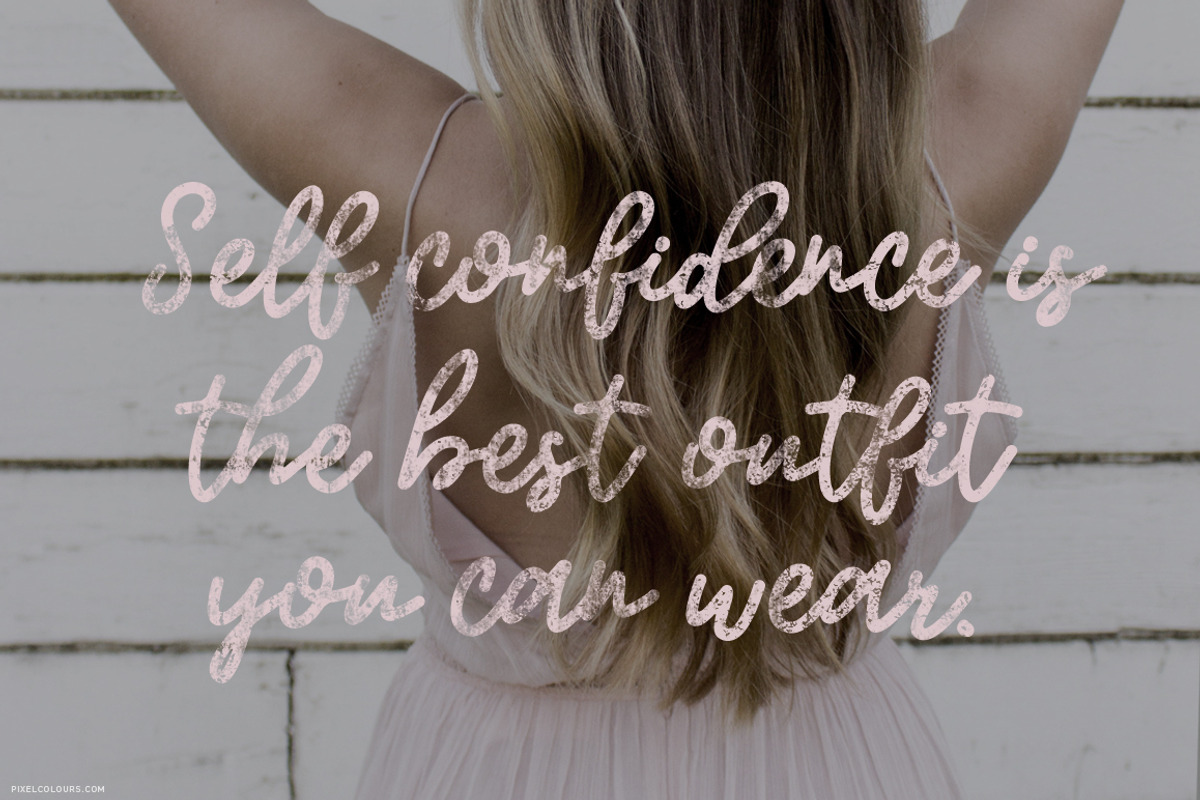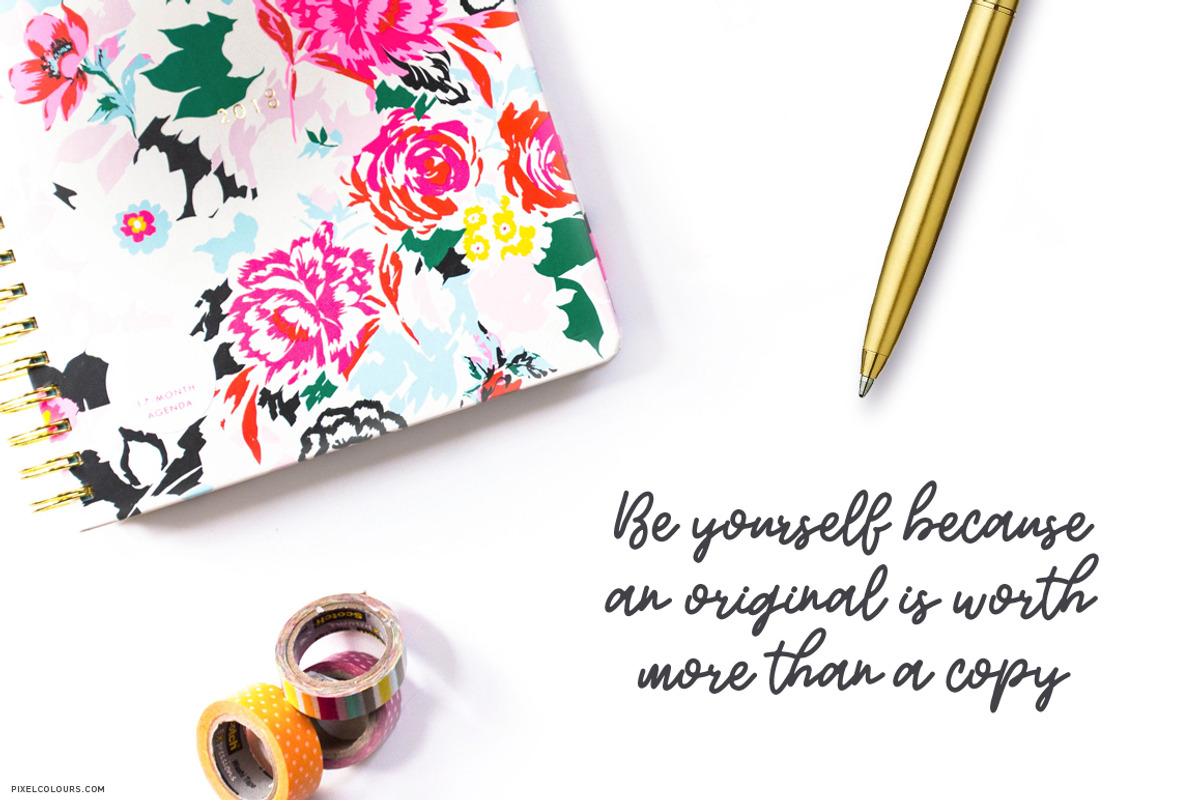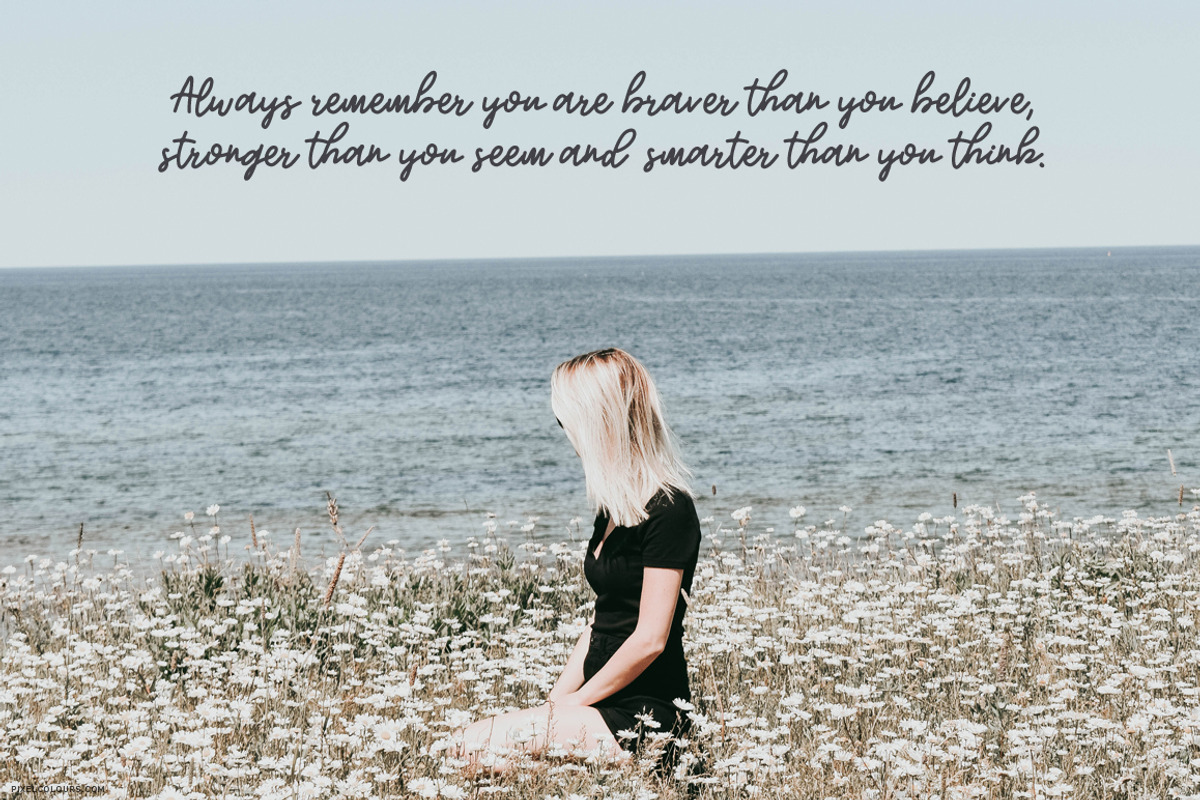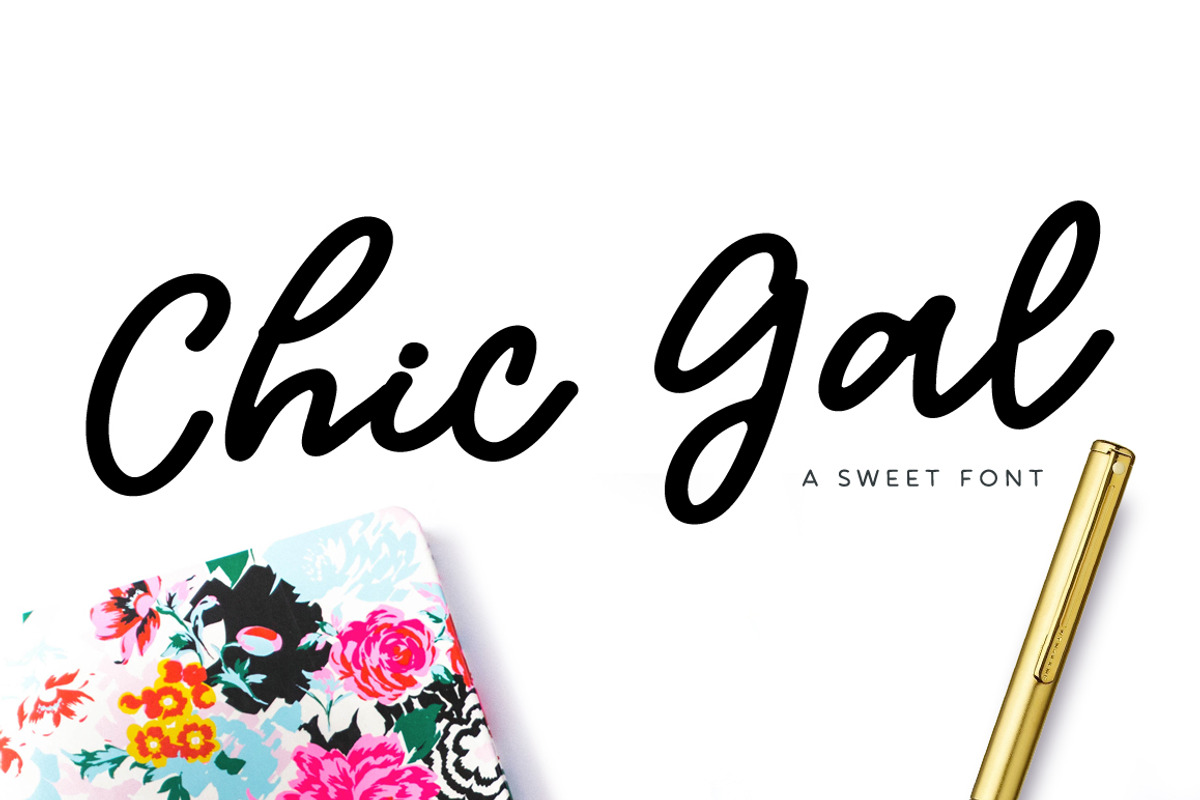
Chic Gal Script Font
A clean feminine script font with and imperfect touch and a bouncy baseline that looks really girly!
It is not bold but it is not thin, it is not textured! It's just perfect for cutting and doing craft projects!
Uppercase and lowercase characters.
Numbers and punctuation.
International characters